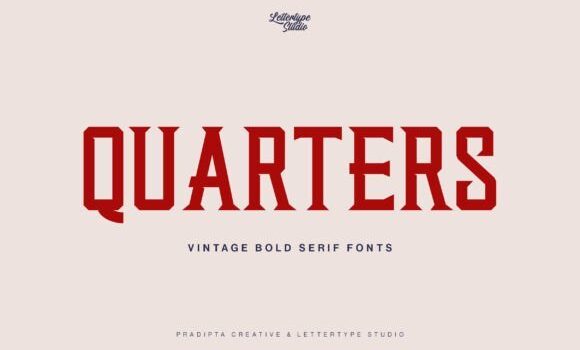
Quarters Font – Free Download Introduction to Quarters Font Quarters is a vintage bold serif font inspired by urban culture with strong characters. 📸 Preview Gallery 6 images 📌 Product Name Quarters Font 👤 Author pradiptacreative 📂 Category Explore ⬇️